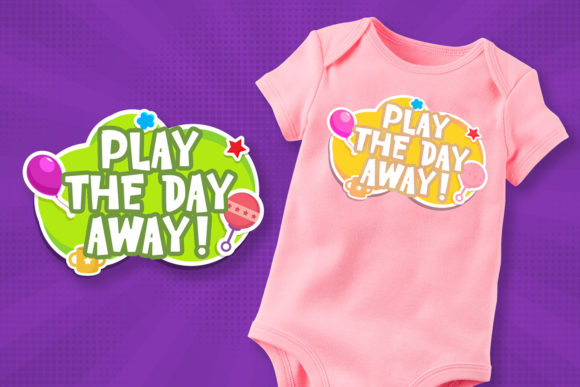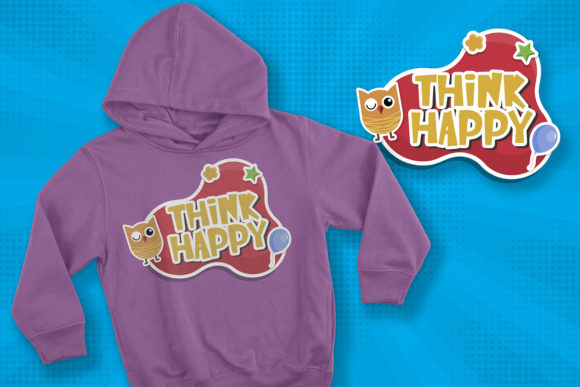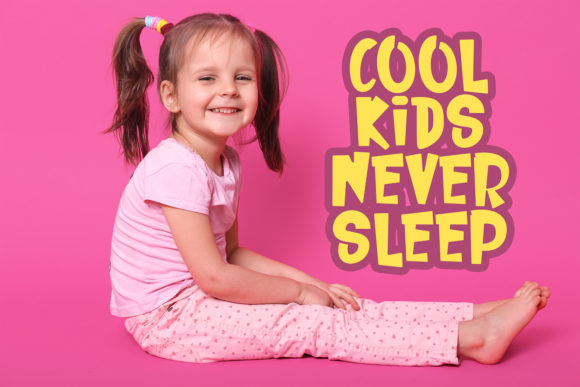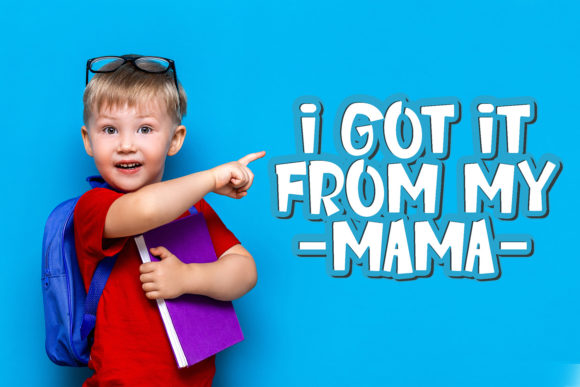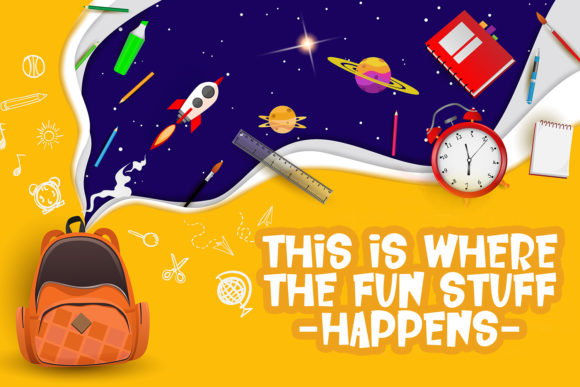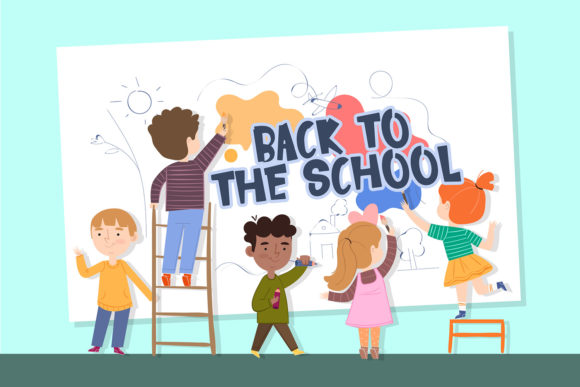
Discover the Joy of Kinder Boys Font
Remember the moment when you stumbled upon a font that made your design instantly come alive? For us, that moment was when we discovered the Kinder Boys Font. Its playful and cute display style is an instant winner, exuding a down-to-earth charm that’s hard to resist. Whether you’re a seasoned designer or just starting out, Kinder Boys Font is sure to bring a smile to your face.
As a versatile font, Kinder Boys Font is perfect for a wide range of design projects, from eye-catching headlines to playful social media graphics. Its casual charm makes it a valuable addition to any designer’s toolkit, allowing you to create designs that are both readable and visually appealing.
Kinder Boys Font Key Features
- Unique Characteristics: Kinder Boys Font features a playful, handwritten style with irregular strokes and flourishes, giving it a distinctive and eye-catching appearance.
Kinder Boys Font Review
I recently had the chance to work with the Kinder Boys Font, and I must say it’s a unique and playful typeface. ✨ Here are some things that work well:
- Expressive and emotive feel – Kinder Boys Font is perfect for creating engaging and child-friendly designs, which is exactly what it’s designed for.
- Customizable and flexible – The font is available in various weights and styles, making it easy to adapt to different design needs.
- Perfect for children’s content – Kinder Boys Font is ideal for creating educational materials, children’s books, and websites for kids.
- Limited legibility at small sizes ⚠️ – Kinder Boys Font can be difficult to read when used at very small sizes, which may limit its use in certain contexts.
- Not suitable for formal or professional content ⚠️ – The playful and childlike feel of Kinder Boys Font may not be suitable for more formal or professional designs.
Overall, Kinder Boys Font is a great choice for designers working on children’s content. While it has some limitations, its unique feel and flexibility make it a valuable addition to any design toolkit.
Tips for Getting the Most Out of Kinder Boys Font
For best results, use Kinder Boys Font in conjunction with bold or italic styles to create a visually appealing effect.
Experiment with different font sizes and combinations to achieve the desired look.
Kinder Boys Font is ideal for:
- Children’s book covers and illustrations
- Toy packaging and branding
- Infant and toddler product design
How do I access the font’s OpenType features?